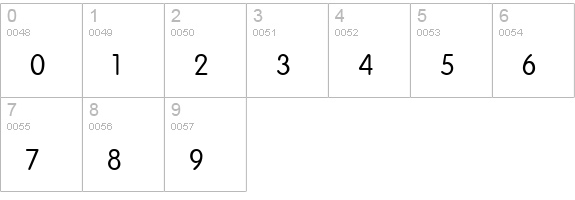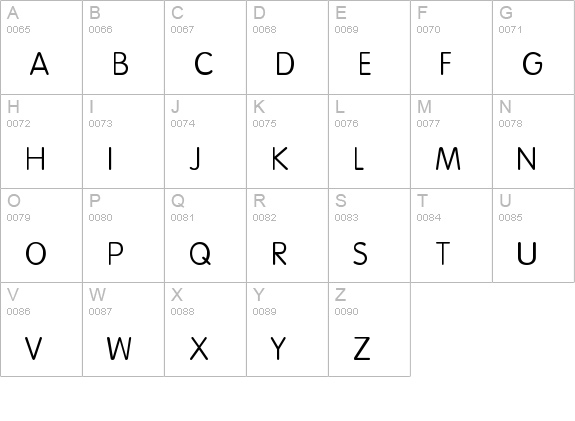
National Primary Font Details
Introducing National Primary font, a versatile and modern typeface that is perfect for a wide range of design projects. This font exudes a sense of professionalism and sophistication, making it ideal for both digital and print applications. With its clean lines and classic design, National Primary is sure to make your text stand out. One of the best things about National Primary font is that it is completely free to download. You can easily access this elegant font at FontsMarket.com, where you can instantly enhance your design projects without having to spend a dime. Whether you are working on a website, branding materials, or print advertisements, National Primary font will surely elevate your design to the next level. Don't miss out on the opportunity to add this stylish and timeless font to your collection. Download National Primary font today and start creating stunning designs that will leave a lasting impression on your audience.